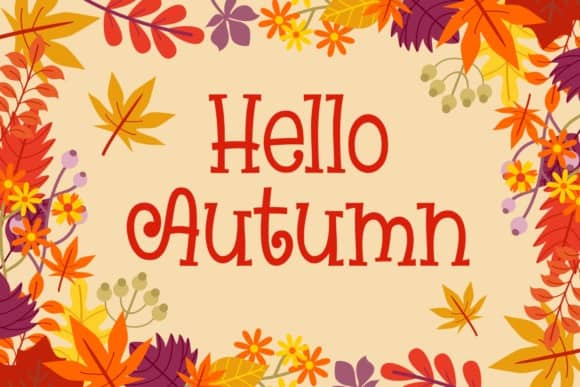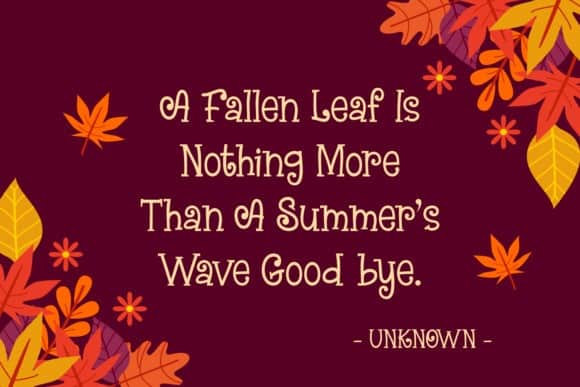
Beautiful Maples Display Font
Beautiful Maples Display Font can make your text appear playful, excited, and modern! it also fits for Travel and nonformal company branding. It’s designed and shared by 7NTypes. Beautiful Maples embodies fun, playfulness and authenticity. This enchanting handwritten font will turn any creative idea into a true standout. The font both works in upper and lower case, making it a true multi-purpose typeface which can be used for packaging, posters or logos.